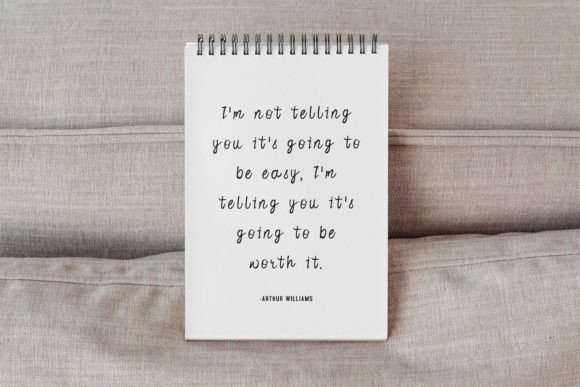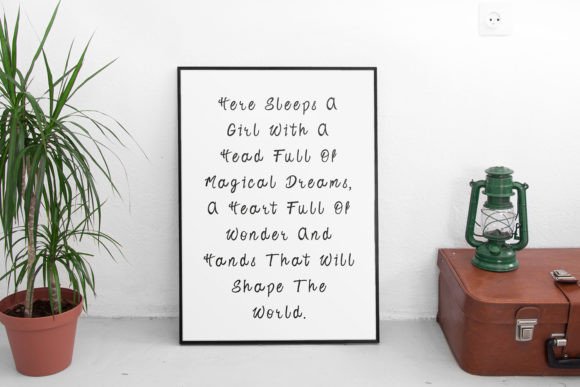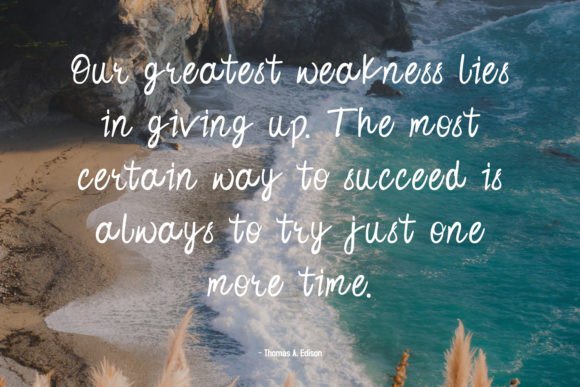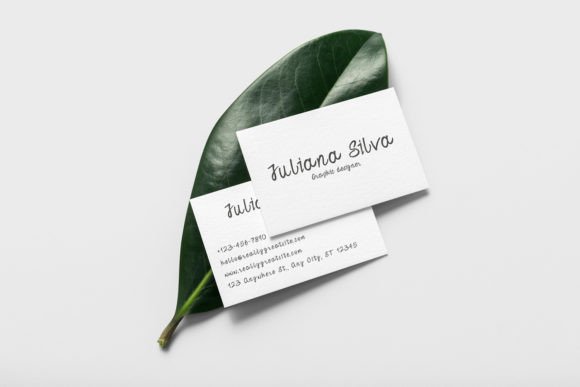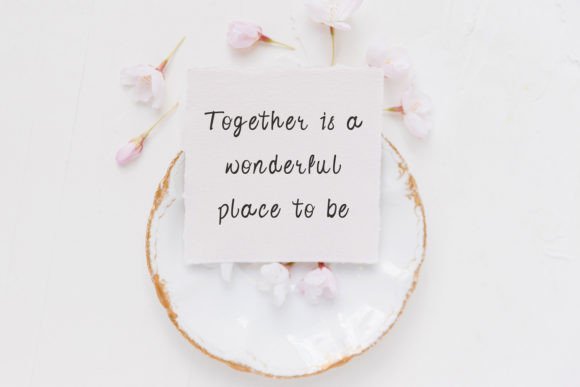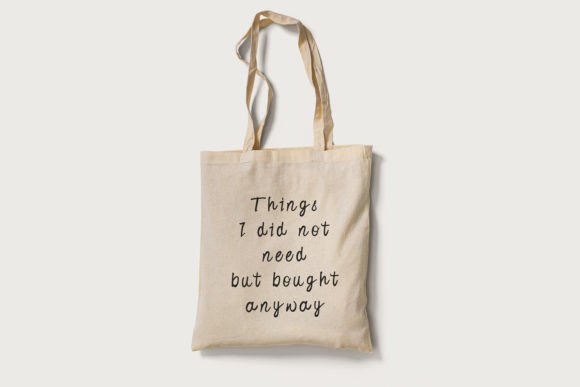
Introducing Haeley Font: The Quirky and Charming Handwritten Font for Your Design Projects
Are you tired of using the same old fonts for your design projects? Do you want to add a touch of personality and whimsy to your creations? Look no further than Haeley Font, a quirky, natural, and attractive hand-made font that’s perfect for designers and crafters alike. In this article, we’ll take a closer look at Haeley Font and explore its features, benefits, and uses.
What is Haeley Font?
Haeley Handwritten Font is a unique and charming font that’s designed to add a chic and cheery touch to your future design projects. This font is perfect for those who want to create something that stands out from the crowd and showcases their personality. With its quirky and natural feel, Haeley Font is ideal for a wide range of design projects, from packaging and presentations to logos, headlines, and more.
Features of Haeley Font
So, what makes Haeley Font so special? Here are some of its key features:
- Uppercase and Lowercase Letters: Haeley Font contains both uppercase and lowercase letters, giving you the flexibility to create a wide range of designs.
- Numbers and Punctuation: The font also includes numbers, punctuation, and symbols, making it a comprehensive and versatile font for all your design needs.
- Multilingual Support: Haeley Font supports multilingualism, allowing you to create designs for a global audience.
Uses of Haeley Font
Haeley Font is an excellent choice for a wide range of design projects, including:
- Packaging: Add a personal touch to your product packaging with Haeley Font.
- Presentations: Make your presentations stand out with this unique and engaging font.
- Logos: Create a memorable and eye-catching logo with Haeley Font.
- Headlines: Use Haeley Font to create attention-grabbing headlines for your blog posts, articles, and more.
- Lettering: Add a touch of personality to your lettering projects with Haeley Font.
- Posters: Create eye-catching posters for events, promotions, and more with Haeley Font.
- Branding: Use Haeley Font to create a consistent brand identity across all your marketing materials.
- Quotes: Add a touch of inspiration to your quote designs with Haeley Font.
- Titles: Use Haeley Font to create engaging and attention-grabbing titles for your books, articles, and more.
- Magazine: Add a personal touch to your magazine designs with Haeley Font.
- Headings: Use Haeley Font to create clear and concise headings for your website, blog, or article.
- Web Layouts: Add a touch of personality to your web layouts with Haeley Font.
- Advertising: Use Haeley Font to create eye-catching and effective advertisements.
- Invitations: Create personalized and engaging invitations with Haeley Font.
- Packaging Design: Add a personal touch to your packaging design with Haeley Font.
- Books: Use Haeley Font to create engaging and attention-grabbing book titles, headings, and more.
Benefits of Using Haeley Font
So, why should you choose Haeley Font for your design projects? Here are some of the benefits of using this unique and charming font:
- Unique and Eye-Catching: Haeley Font is a one-of-a-kind font that’s sure to grab attention and make your designs stand out.
- Versatile: Haeley Font is a versatile font that can be used for a wide range of design projects.
- Easy to Read: Despite its quirky and playful feel, Haeley Font is easy to read and understand.
- Supports Multilingualism: Haeley Font supports multilingualism, making it a great choice for designers who work with clients from around the world.
In conclusion, Haeley Font is a quirky, natural, and attractive hand-made font that’s perfect for designers and crafters who want to add a touch of personality and whimsy to their design projects. With its comprehensive features, versatility, and ease of use, Haeley Font is an excellent choice for a wide range of design projects. Whether you’re working on packaging, presentations, logos, headlines, or more, Haeley Font is sure to make your designs stand out and leave a lasting impression.